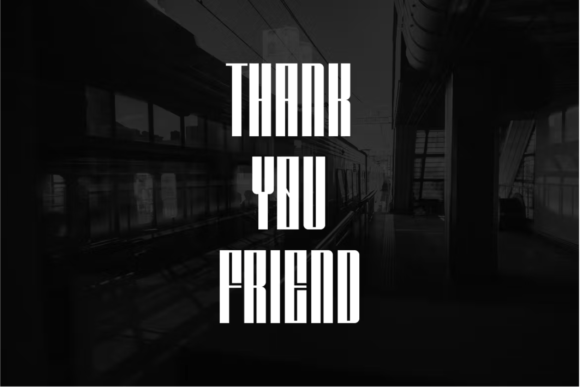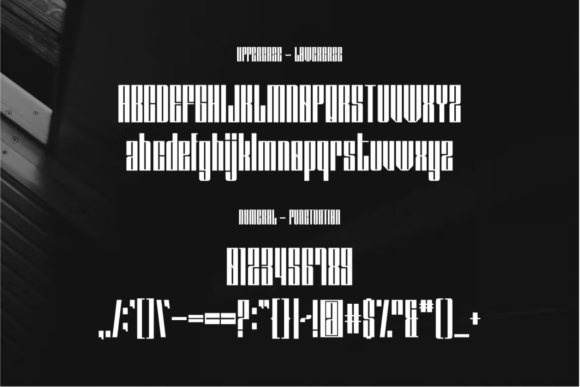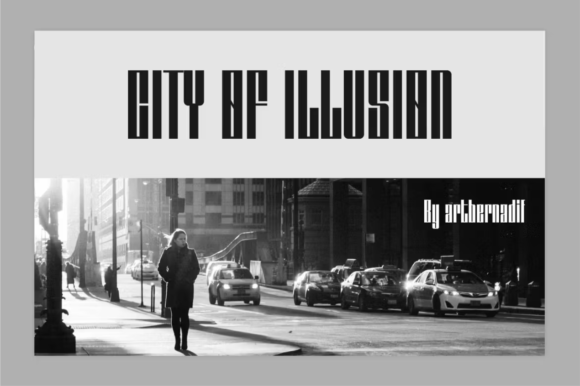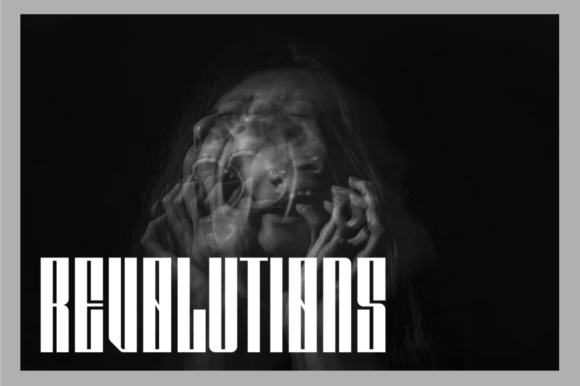
Introduction to Proraman Font
Imagine you’re working on a high-profile design project and you need the perfect font to grab attention. You’ve spent hours searching through design resources, but nothing seems quite right. Then, you stumble upon the Proraman Font – a game-changer that elevates your creative project to the next level.
With its bold and modern sans serif design, the Proraman Font is a versatile tool that adds depth and sophistication to any text. Whether you’re working on a business logo, brochure, or website, this high-quality font is sure to make your text stand out. Plus, its clean lines and transparent background make it easy to work with and download – free, of course!
As a designer, you understand the importance of having the right design resources at your fingertips. The Proraman Font is a valuable addition to your toolkit, offering a level of sophistication and style that’s hard to find elsewhere.
Key Features of Proraman Font
- High-quality design resource ideal for creative projects and personal use
- Transparent background and scalable design make it perfect for digital applications
- Available in multiple sizes and resolutions to cater to various design requirements
- Unique, stylish design with a modern twist, perfect for branding and marketing materials
- Can be easily customized and edited using popular design software and tools
Honest Review: Proraman Font
As a designer, I’m always on the lookout for high-quality design resources that can elevate my creative projects. Recently, I had the chance to try out the Proraman Font, and I must say, it’s been a game-changer for me.
What works well: ✨ The Proraman Font is incredibly versatile, making it perfect for a wide range of design projects, from corporate branding to creative illustrations. Its sleek and modern design is sure to make a statement in any visual project. The font is also available for free download, which is a major plus for designers on a budget.
Limitations: ⚠️ While the Proraman Font is an excellent addition to any design resource library, I did find that it’s not suitable for use in small text sizes. The font can become blurry and difficult to read, which is a major drawback.
Overall, I’m thoroughly impressed with the Proraman Font. Its high-quality design, versatility, and free download make it an excellent choice for designers of all levels. With a little bit of creativity, this font can take your design projects to the next level.
To get the most out of the Proraman Font, experiment with different font sizes, colors, and combinations with other design elements. You can also use the font to create bold headings or to add a touch of elegance to your text.
The Proraman Font is suitable for a wide range of creative projects, including business cards, brochures, and website headers. Its high-quality design makes it a versatile resource that can be used in both professional and personal projects.